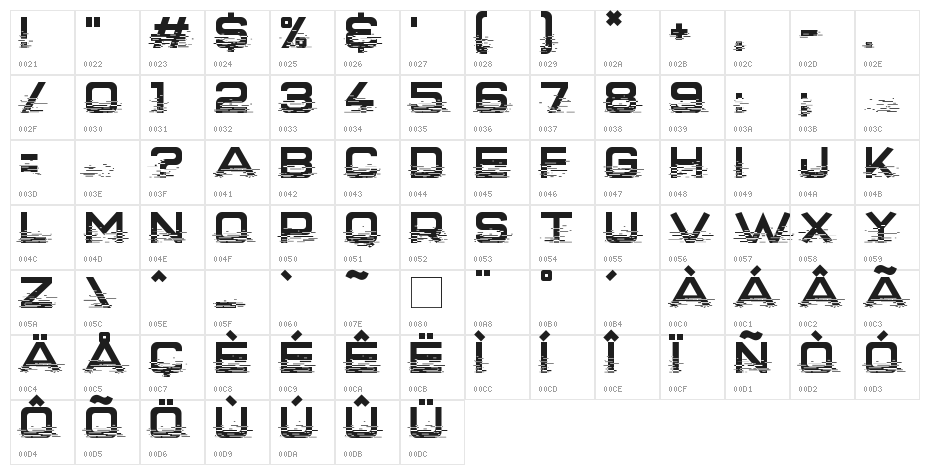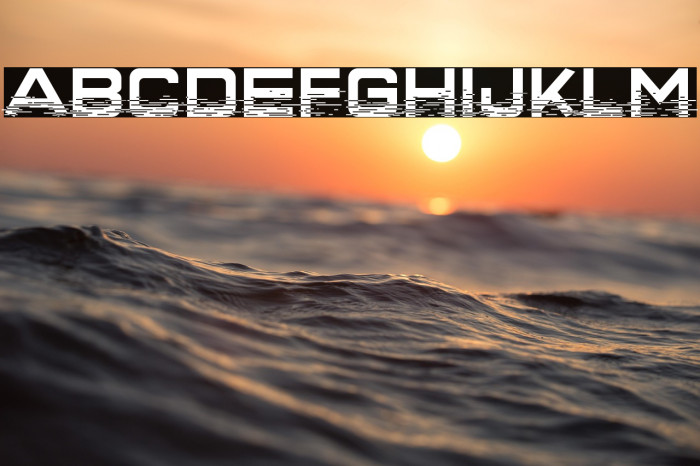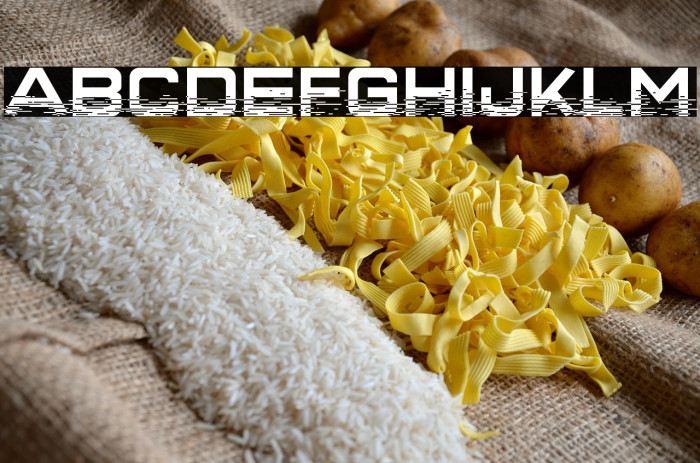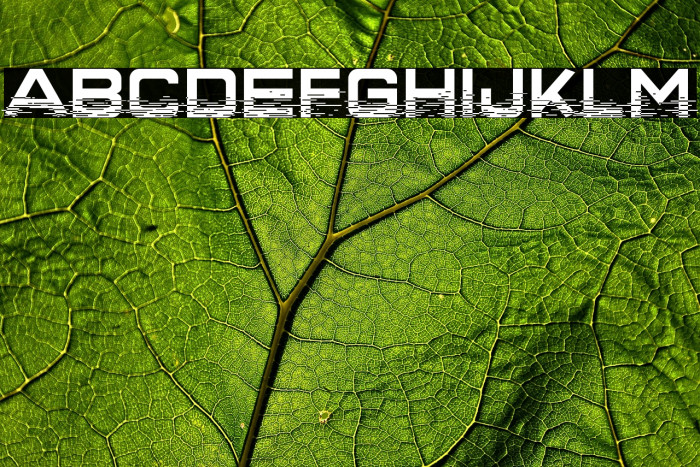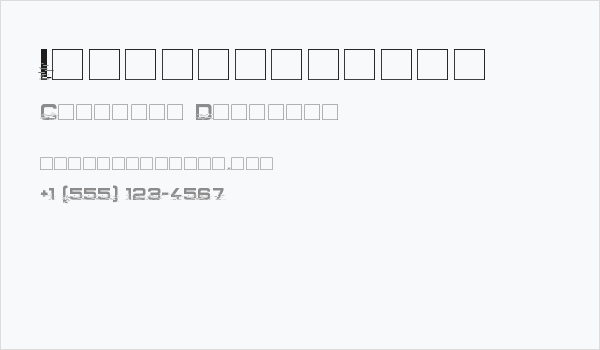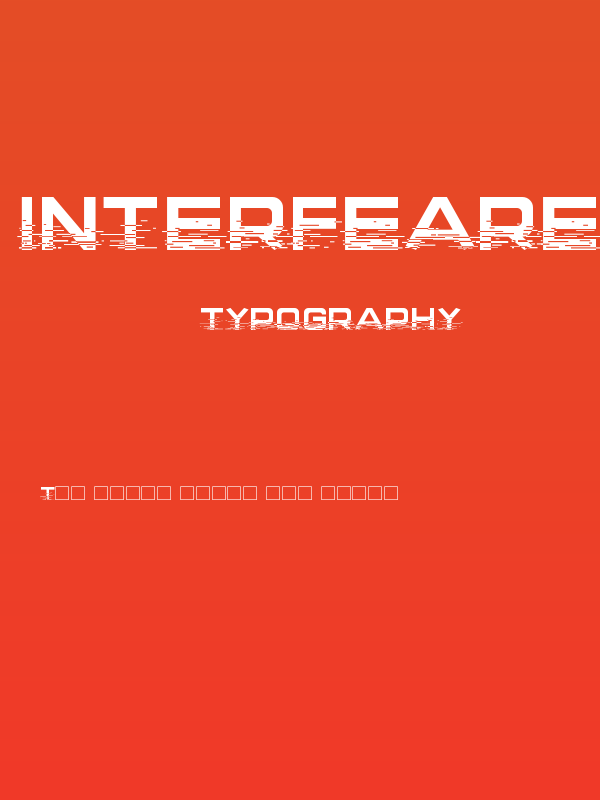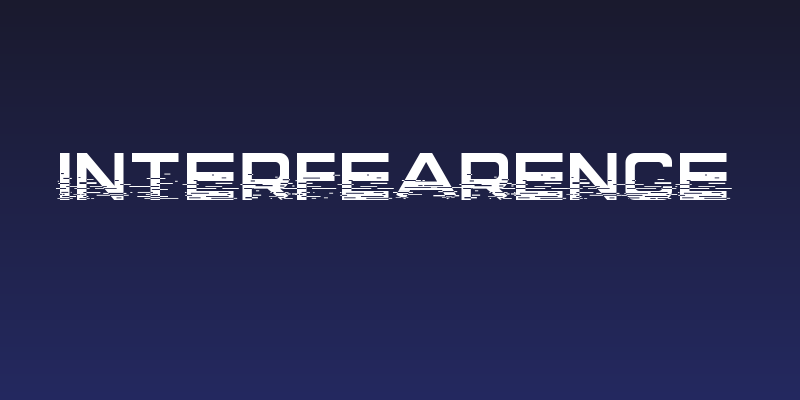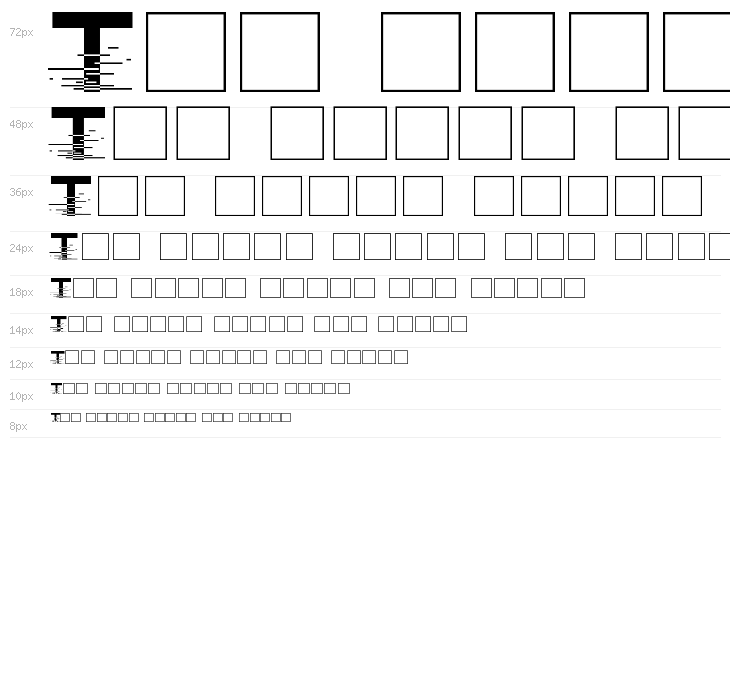
Interfearence Font
Interfearence Description
This font features a unique glitch effect, where each character appears to be distorted with horizontal lines cutting through the letters. The style is bold and modern, with a digital, futuristic aesthetic. The uppercase and lowercase letters maintain a consistent width, while the numbers and special characters follow the same glitch theme. The font's design is eye-catching and unconventional, making it ideal for projects that require a tech-savvy or avant-garde look.
| Proposed Projects | Ideal for digital art, tech-themed posters, video game graphics, and futuristic branding. |